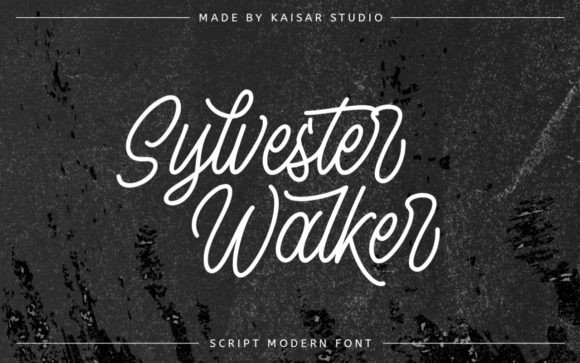
Prepare to be captivated by Sylvester Walker, a breathtaking script font that will leave you spellbound with its irresistible charm and exquisite design. Its dynamic character and playful flow will ignite your creativity and infuse your projects with a touch of elegance and uniqueness.
As you embark on a typographic adventure with Sylvester Walker, you'll be amazed by its versatility and adaptability. This script font is a true chameleon, effortlessly transitioning from elegant wedding invitations to playful social media posts. Its inherent charm and charisma will elevate your designs to new heights, leaving a lasting impression on your audience.
Imagine the sheer delight of crafting captivating logos that demand attention, or designing eye-catching posters that ignite imaginations. Sylvester Walker's innate ability to captivate and enthrall will transform your projects into visual masterpieces.
With Sylvester Walker, you'll discover a wealth of creative possibilities. Its meticulously crafted characters dance across the page, inviting you to explore a world of endless possibilities. Let your creativity soar as you create stunning branding materials, captivating website designs, and social media posts that resonate with your audience.
Whether you're a seasoned designer seeking to expand your typographic horizons or a budding artist eager to make a bold statement, Sylvester Walker is your perfect companion. It's a font that empowers you to express your individuality, to tell your story with passion and conviction.
Don't let this exceptional opportunity pass you by. Embrace the allure of Sylvester Walker and immerse yourself in a world of typographic enchantment. Seize this chance to elevate your designs, unleash your creativity, and leave an indelible mark on the world.